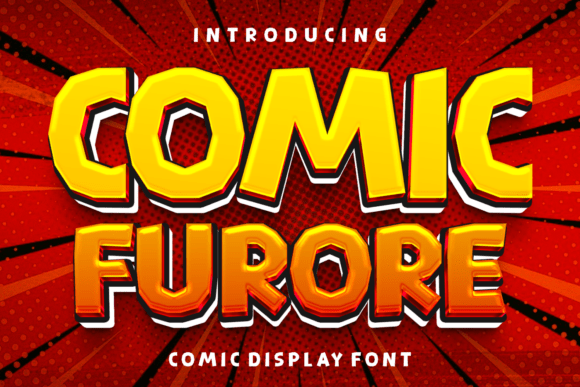
Introduction to Comic Furore Font
Prepare to captivate and charm with β€œComic Furore,” a multi-faceted font that melds various design elements for all types of projects.
Tailored to delight the young and the young at heart, this comic-inspired font is perfect for adding a playful touch to your work Ideal for flavorful wallpapers, heroic headlines, and craft projects that require a distinct style that glows with beauty and popularity.
Key Features of Comic Furore Font
Why Choose Comic Furore Font?
Comic Furore Font offers exceptional quality and versatility, making it a valuable addition to your design toolkit. Whether you’re creating for personal projects or commercial use, Comic Furore Font delivers professional results.